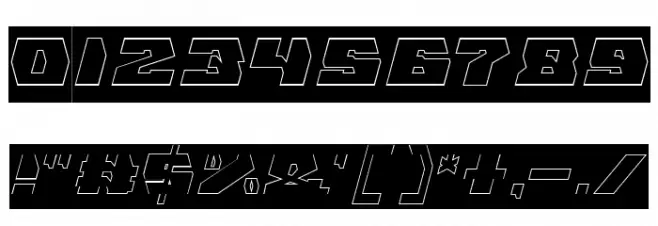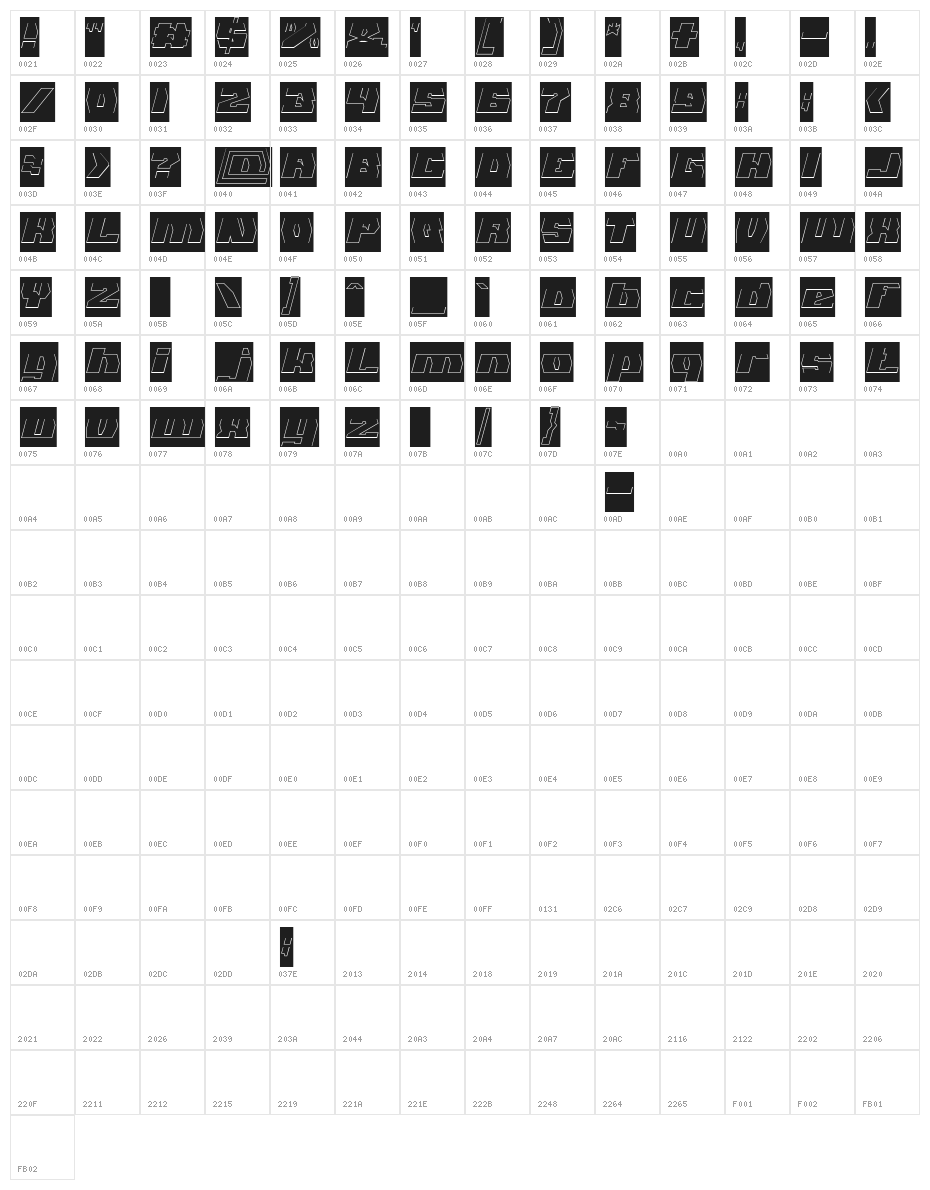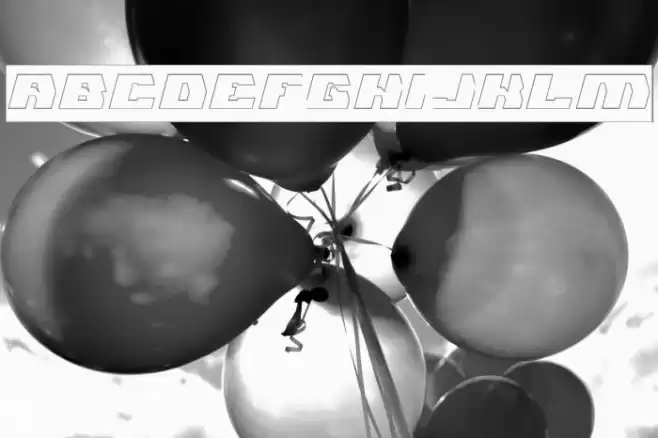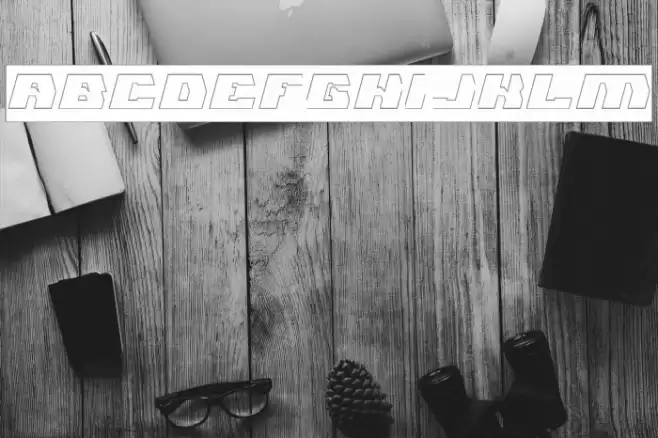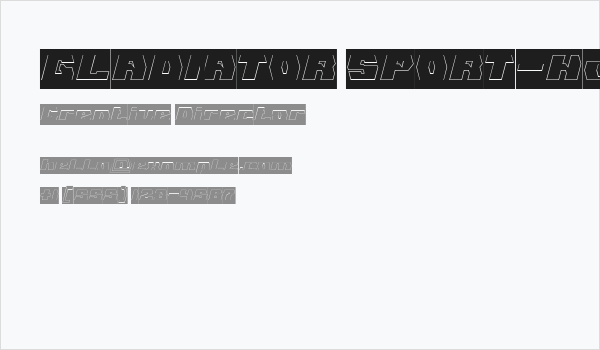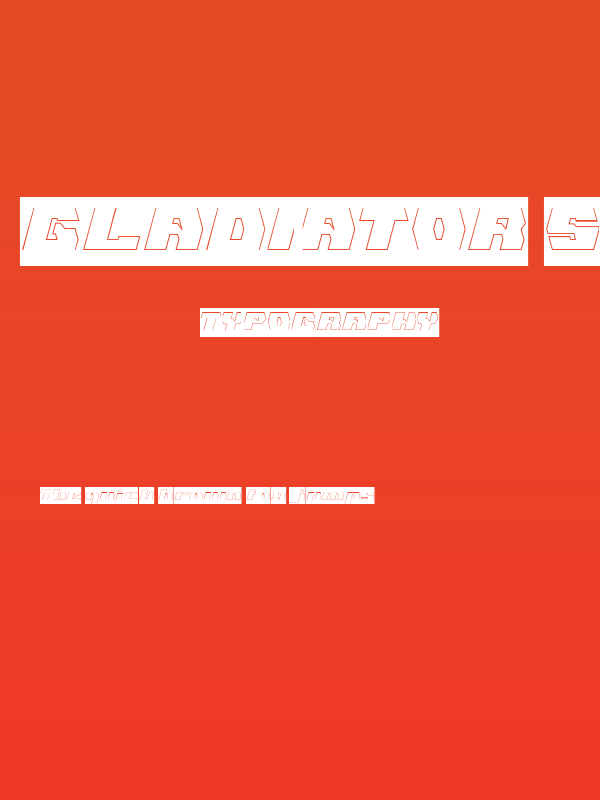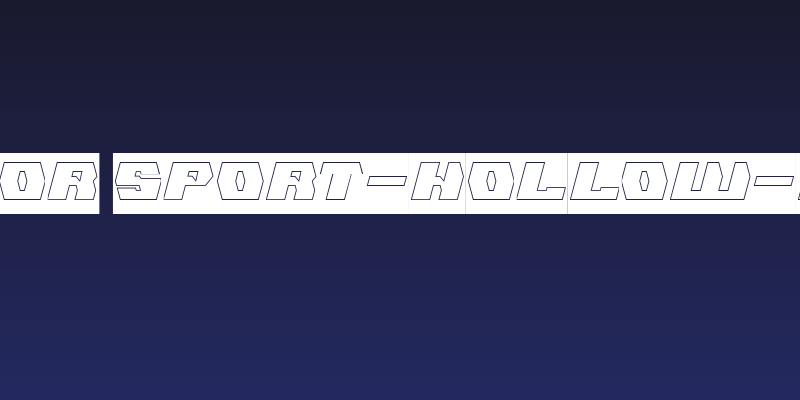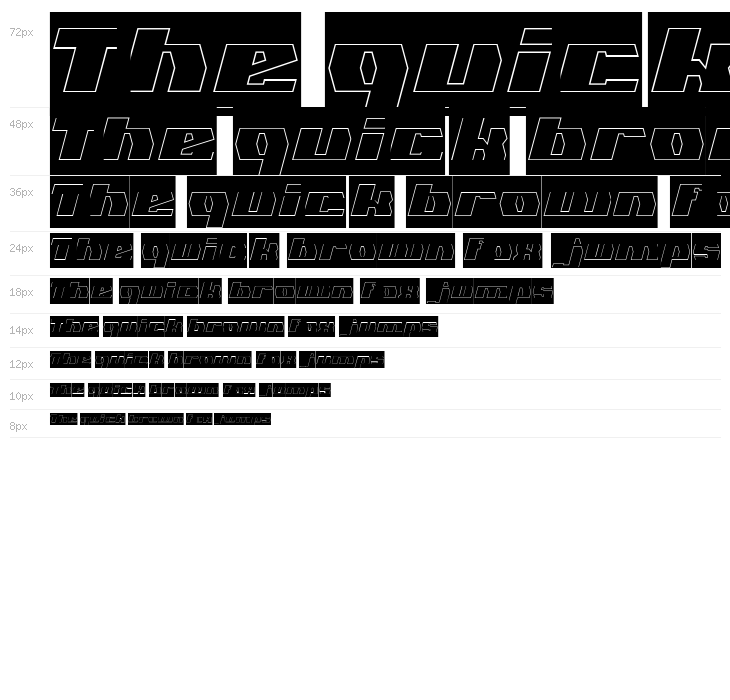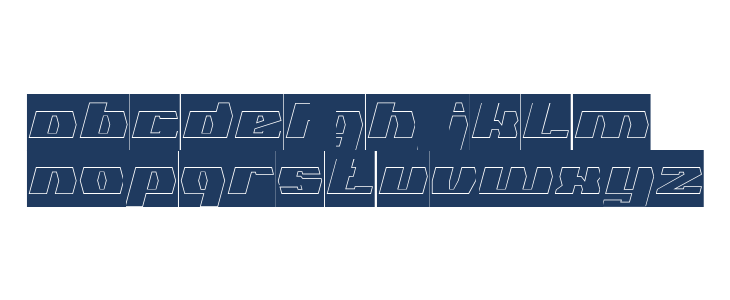
GLADIATOR SPORT-Hollow-Inverse Font
GLADIATOR SPORT-Hollow-Inverse Description
This font features a bold, hollow design with an inverse style, creating a striking visual impact. The uppercase and lowercase letters maintain a consistent geometric structure, characterized by sharp angles and clean lines. The numbers and special characters follow the same design principles, ensuring uniformity across all glyphs. The font's hollow nature allows for creative use of background colors or textures to shine through, making it ideal for eye-catching designs. Its modern and sporty aesthetic is perfect for projects that require a dynamic and energetic feel.
| Proposed Projects | Ideal for sports branding, dynamic posters, modern logos, and eye-catching headlines. |